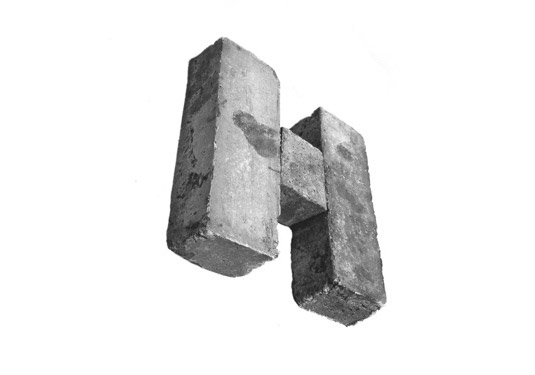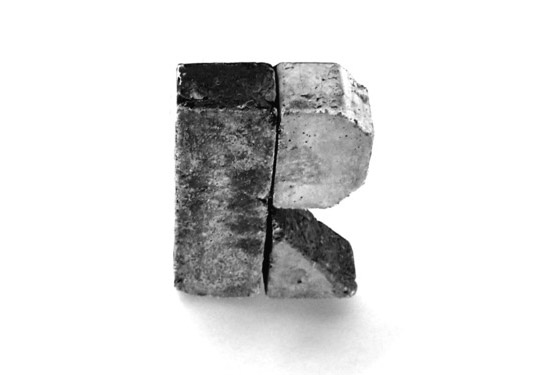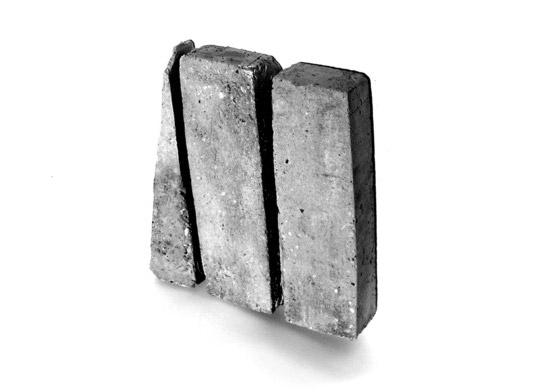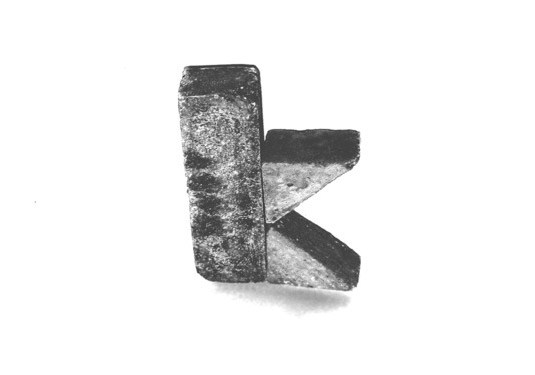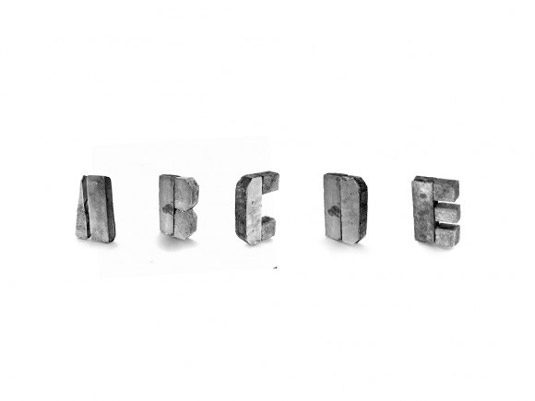
The typeface made of concrete
Inspired by Brutalist architecture, David McGillivray has created a solid typeface built on firm foundations.
New York-based British designer David McGillivray brings the worlds of typography and architecture together in this font made completely out of concrete. Inspired by Brutalist architecture, specifically that of London's Hayward Gallery, McGillivray created the entire alphabet using just seven concrete shapes.
"This is an exploration of typography and architecture," explains McGillivray, "a non commercial project where I endeavored to merge the two worlds with a prefab style kit of concrete shapes that come together to make a concrete typeface. The whole alphabet can be created using seven shapes, which I cast into 14 blocks of concrete in total. Nothing has been added to the images; it’s all real concrete."
We love how, with his bare hands, McGillivray has managed to transform an everyday material into something very special with this strangely alluring typeface.